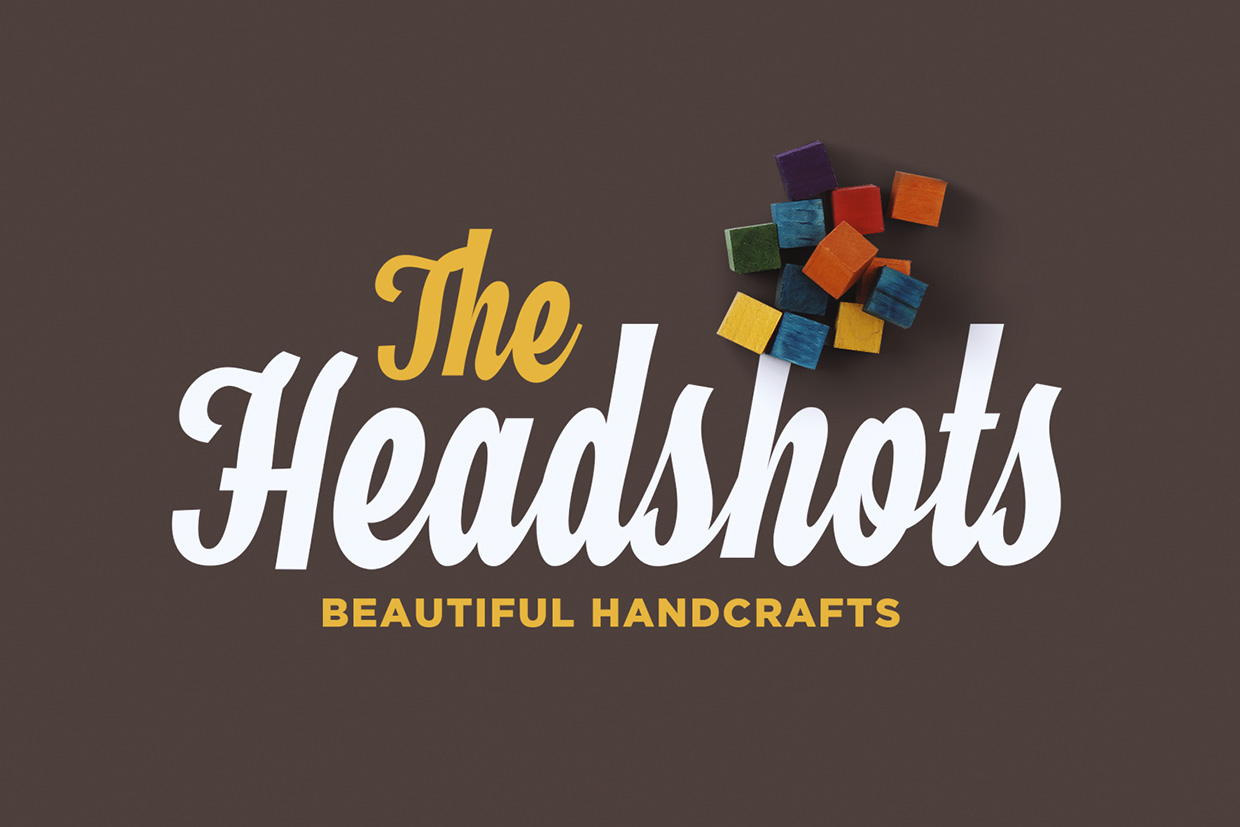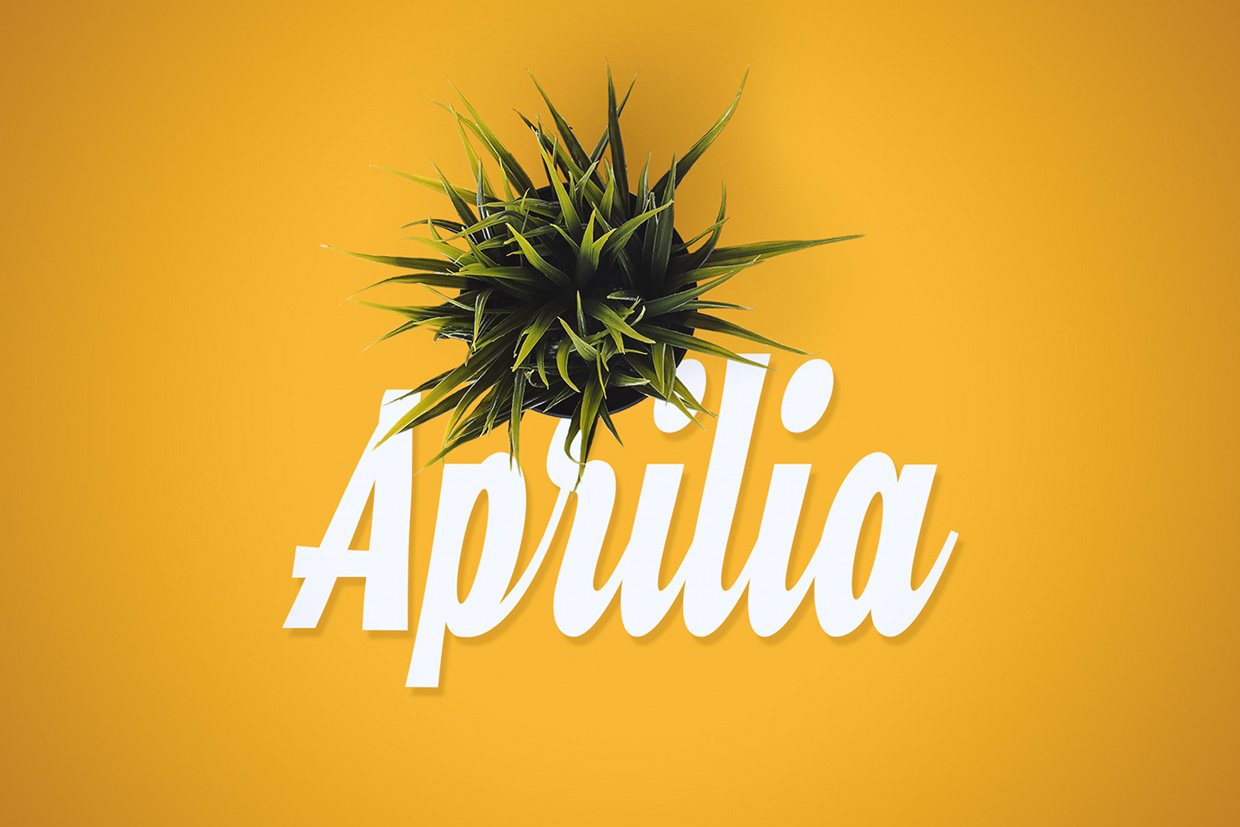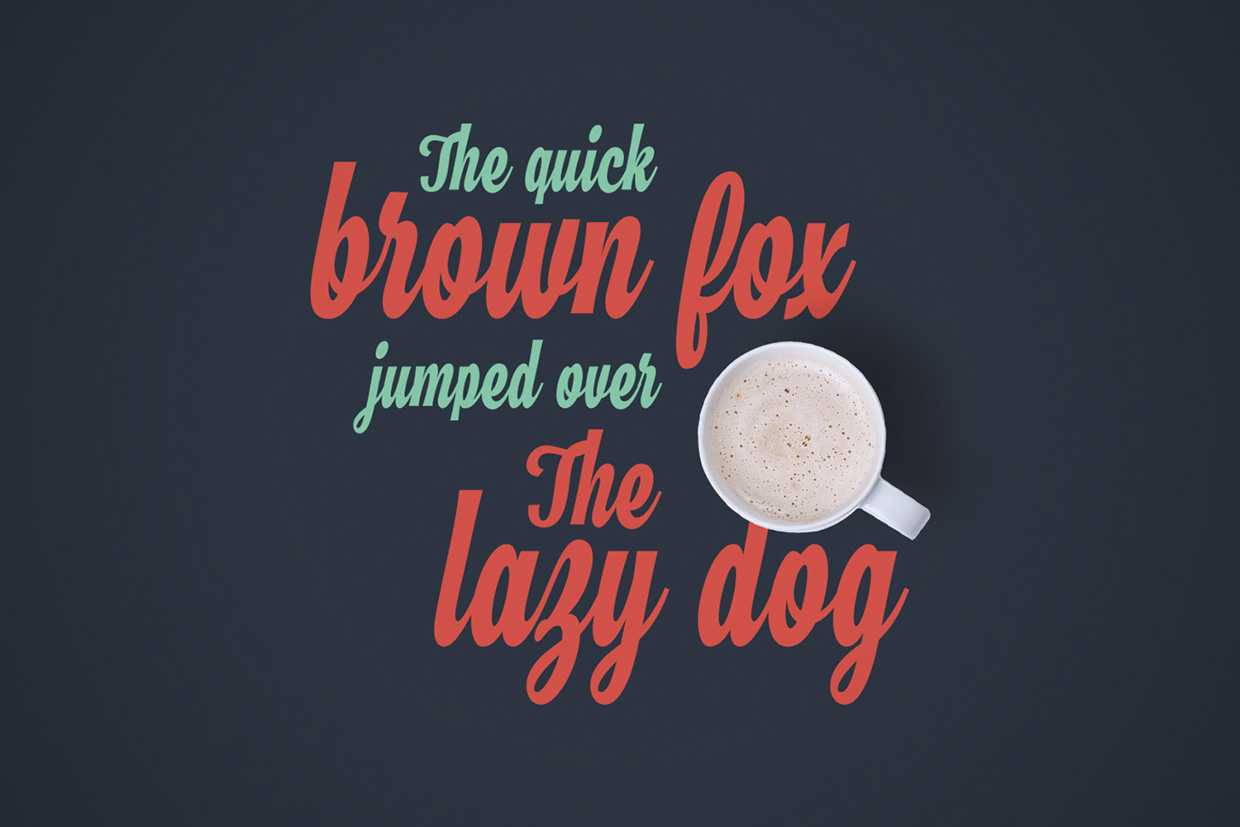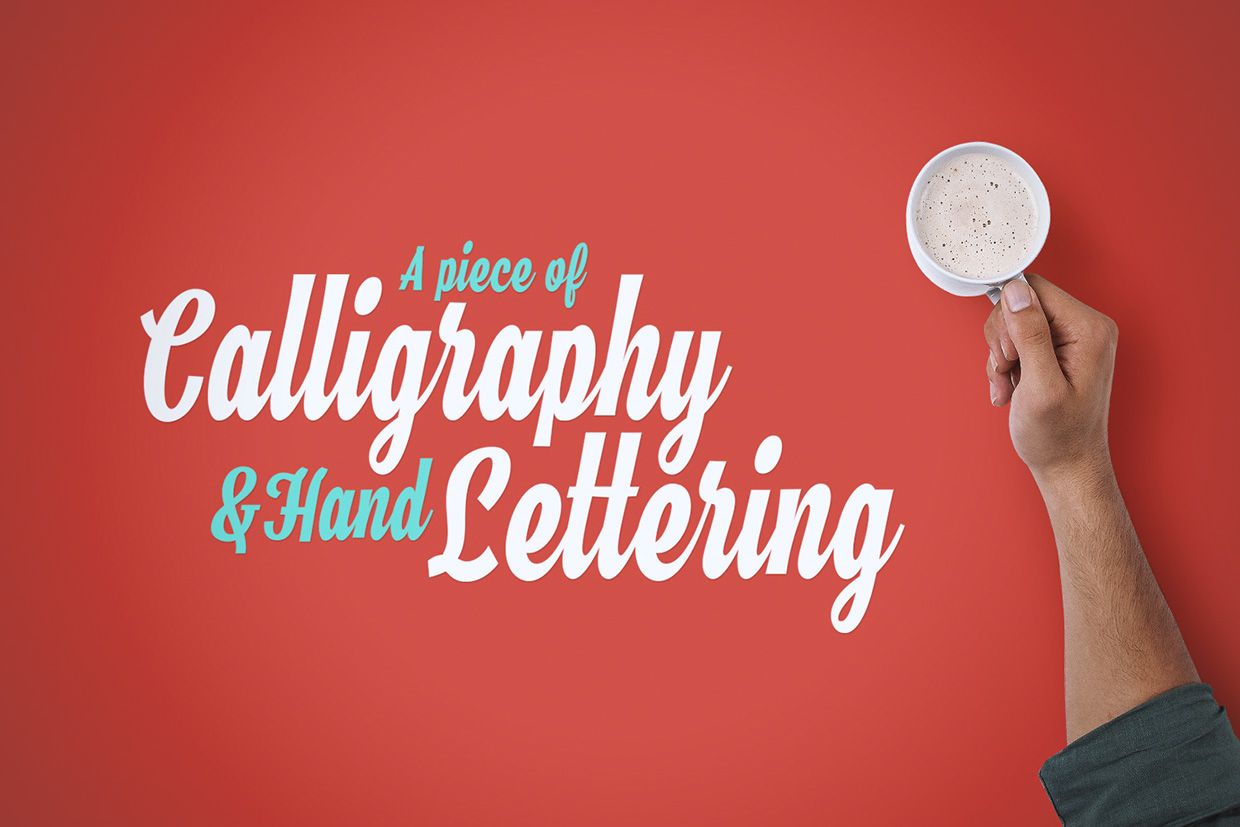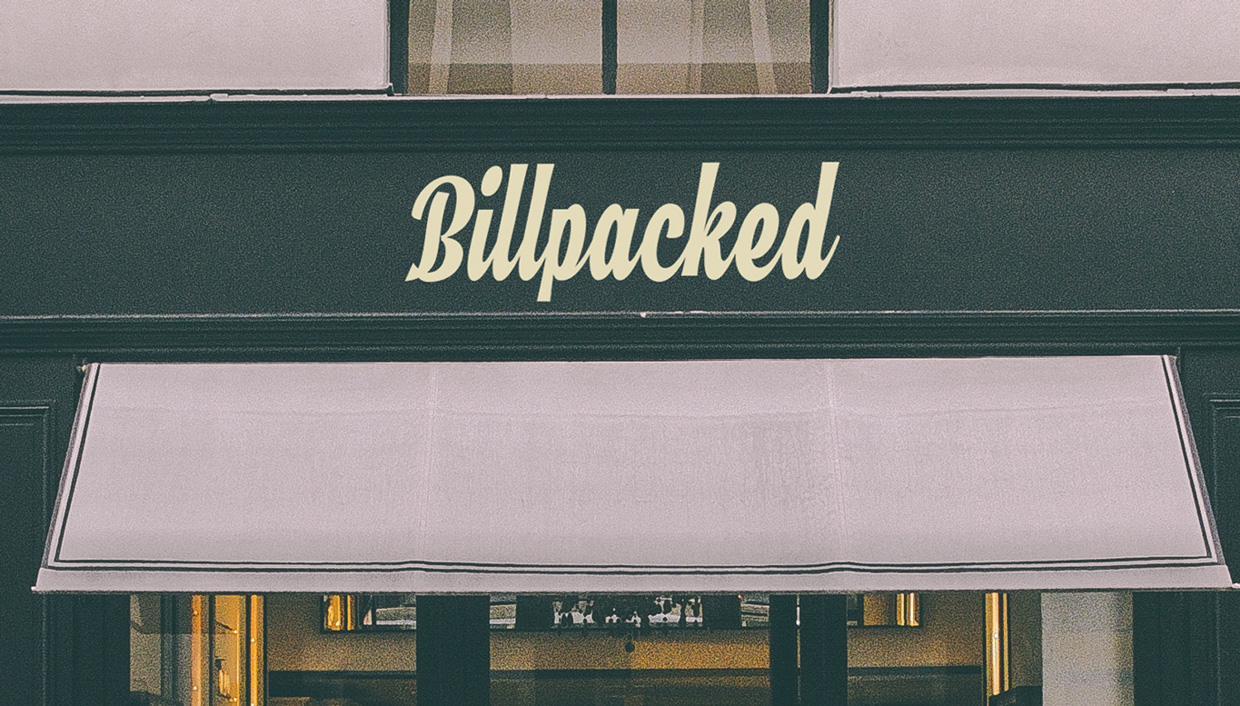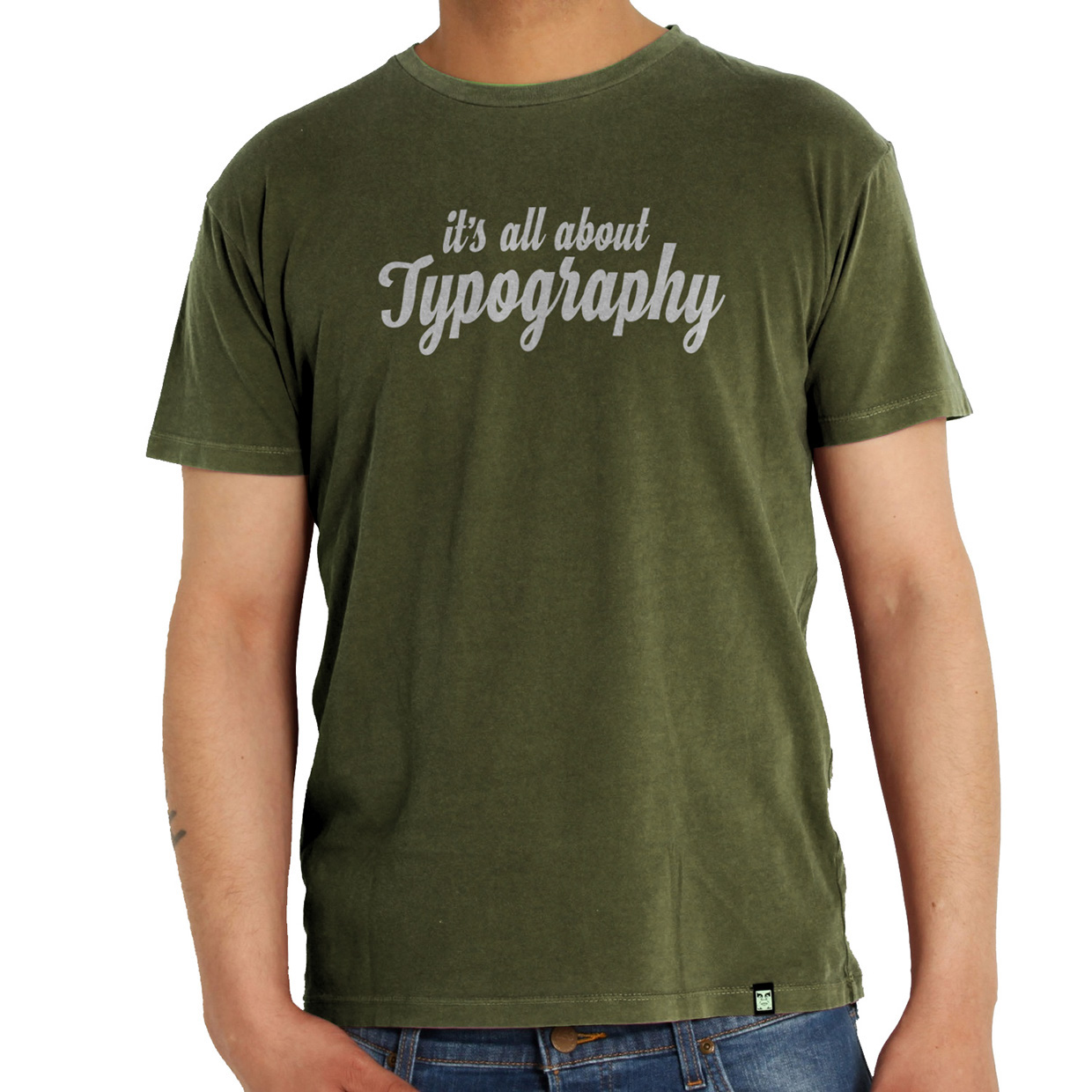
Hamster – Free Script Font
This script custom font is from Artimasa. Hamster is a cursive typeface inspired by brush lettering and traditional sign painting. Suitable for branding/identity, clothing/t-shirt design, signage, headlines, poster, etc. Hamster Script was crafted carefully to equalize the dynamic flow and it’s legibility.